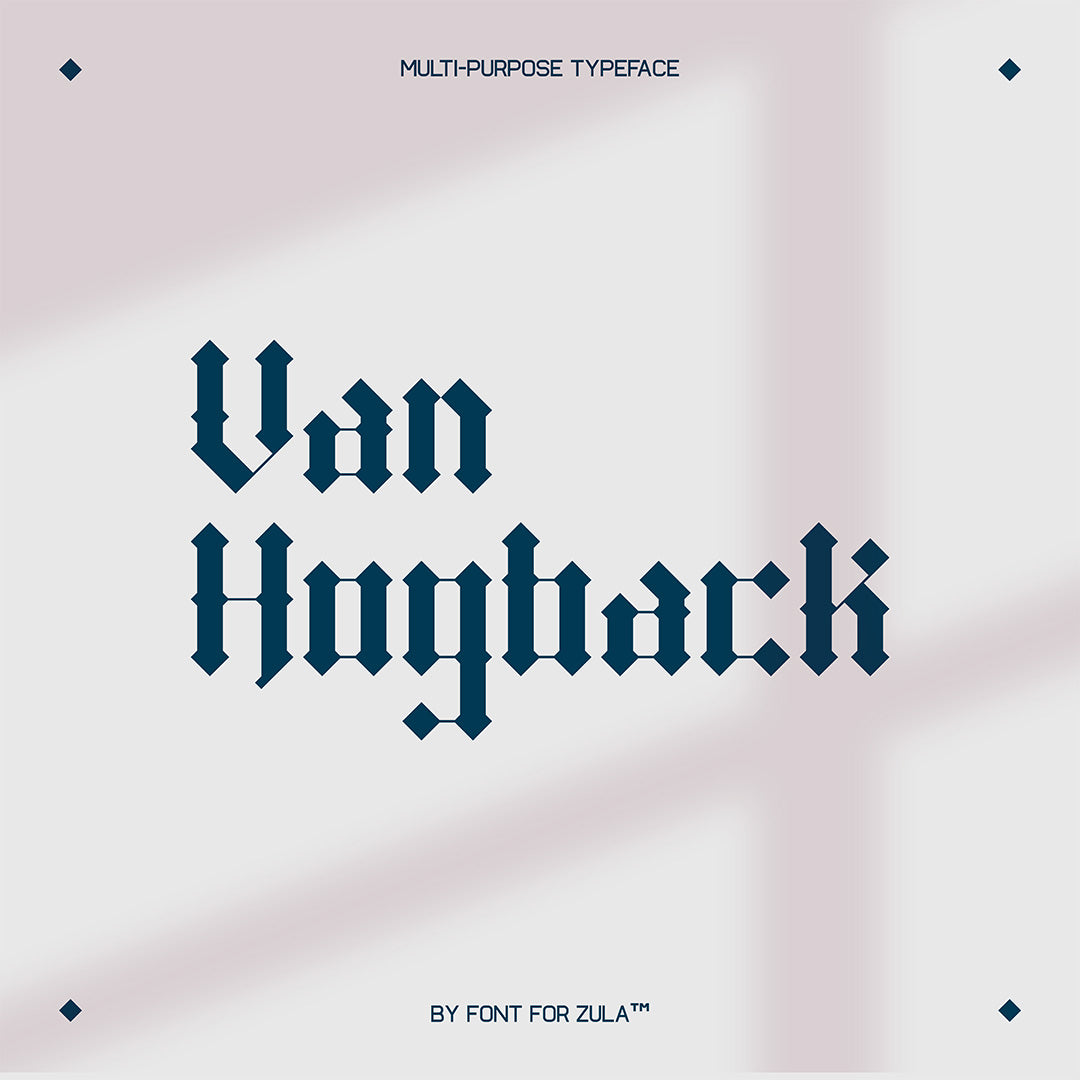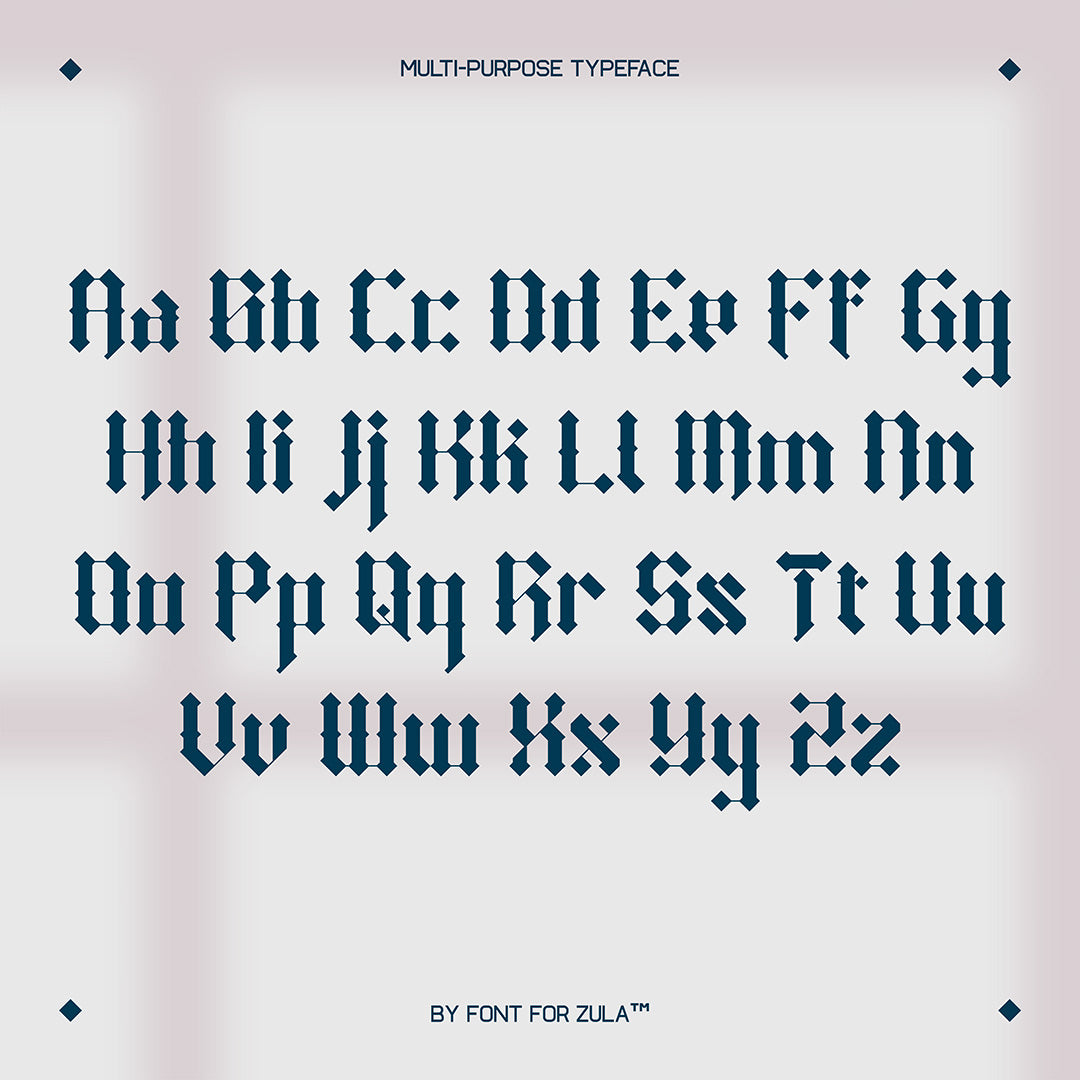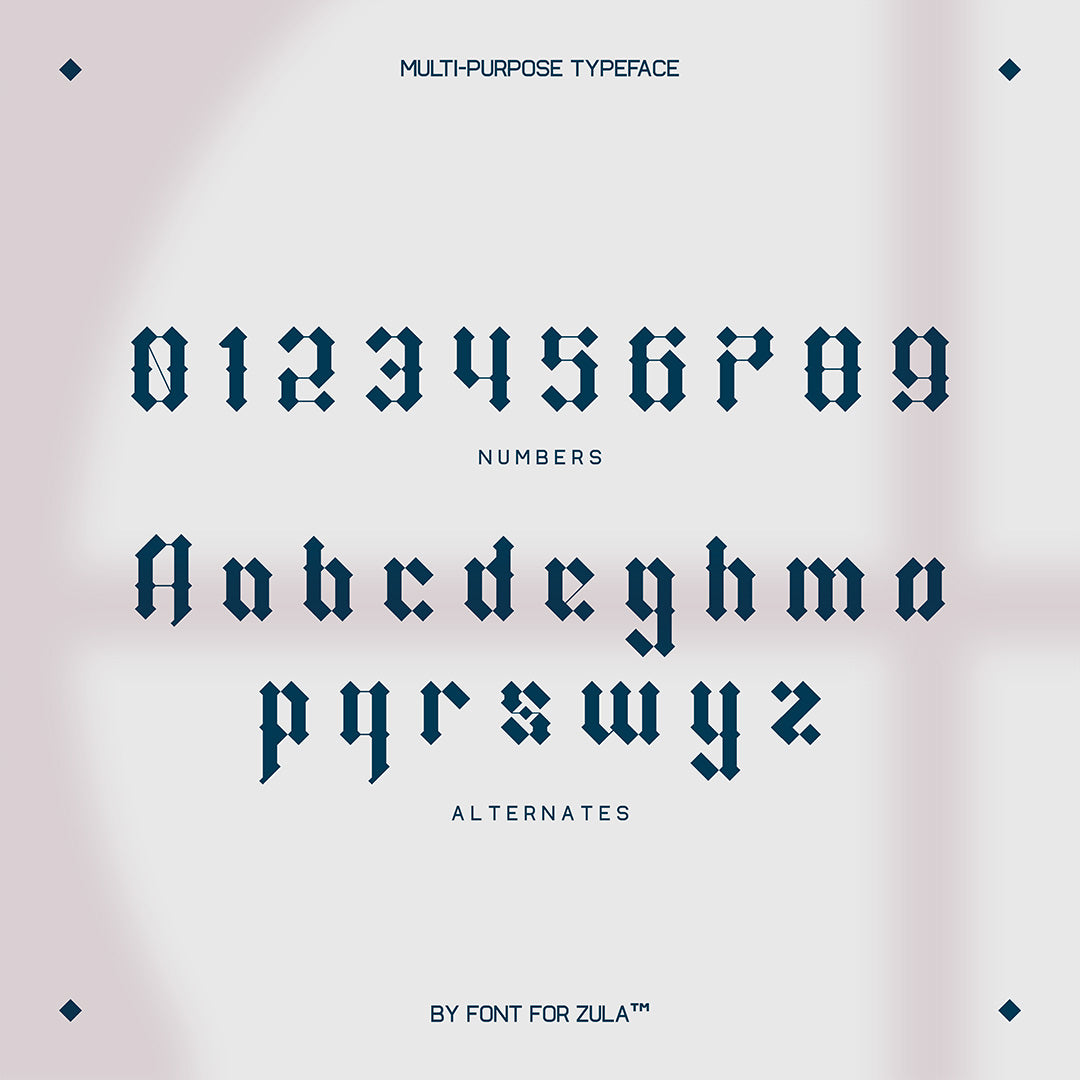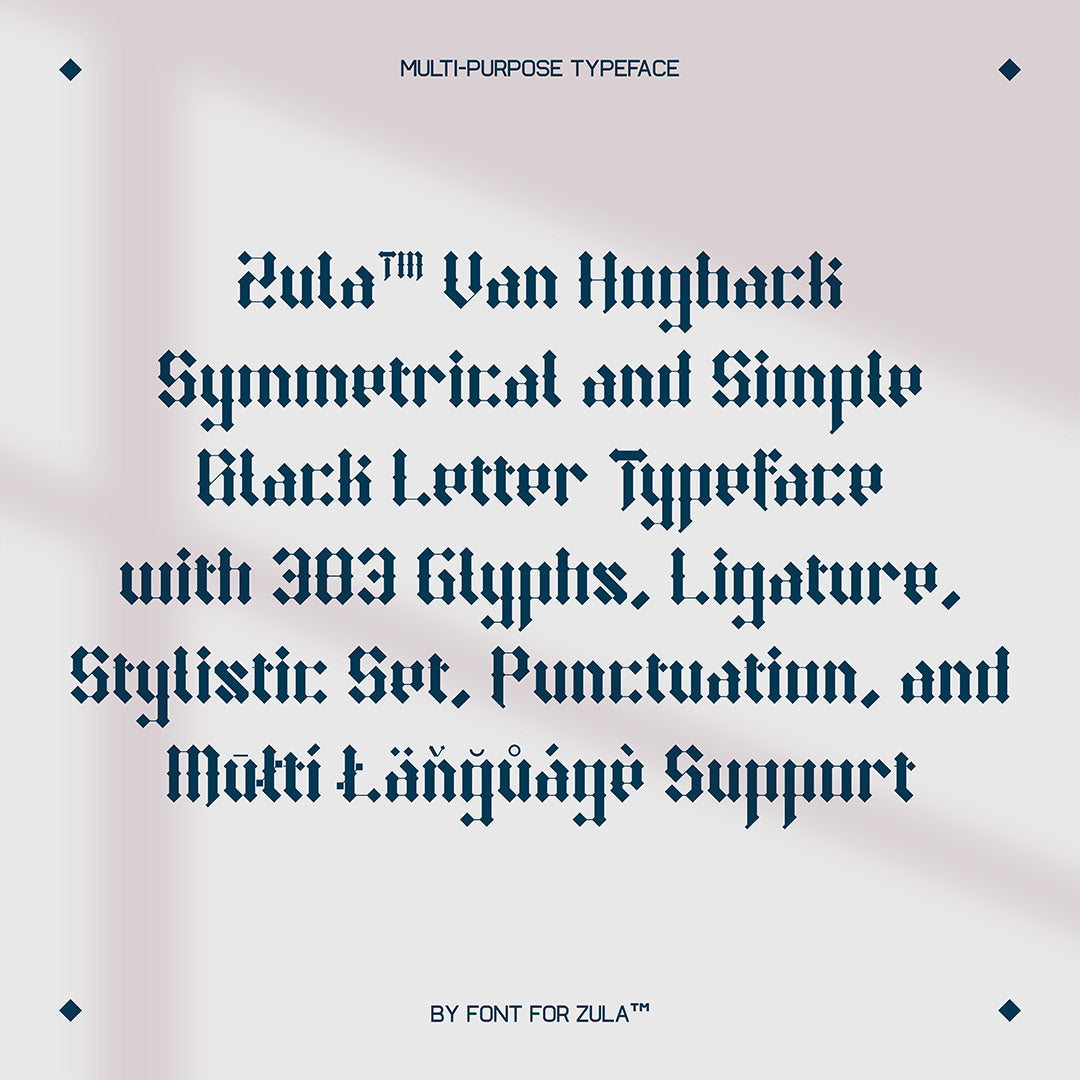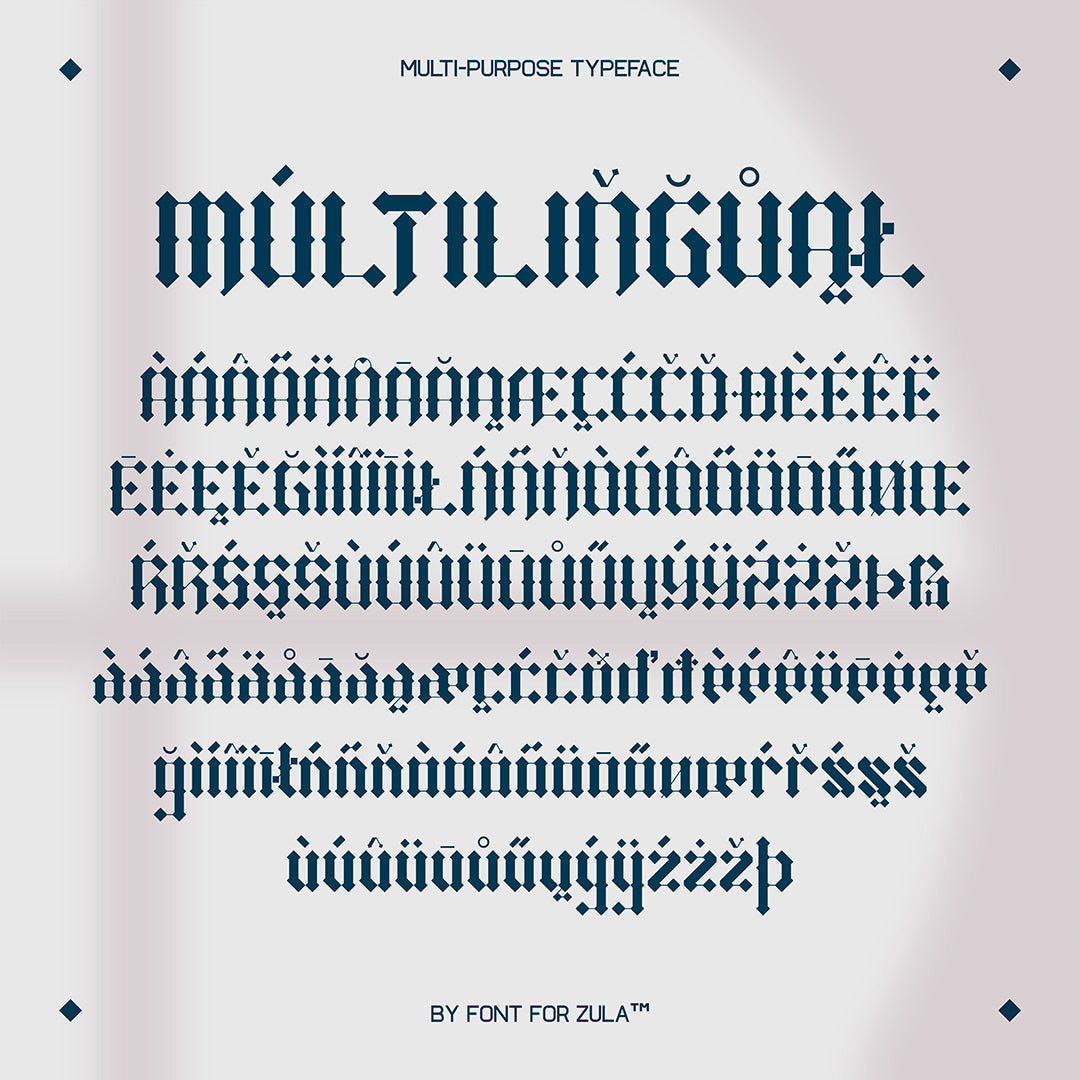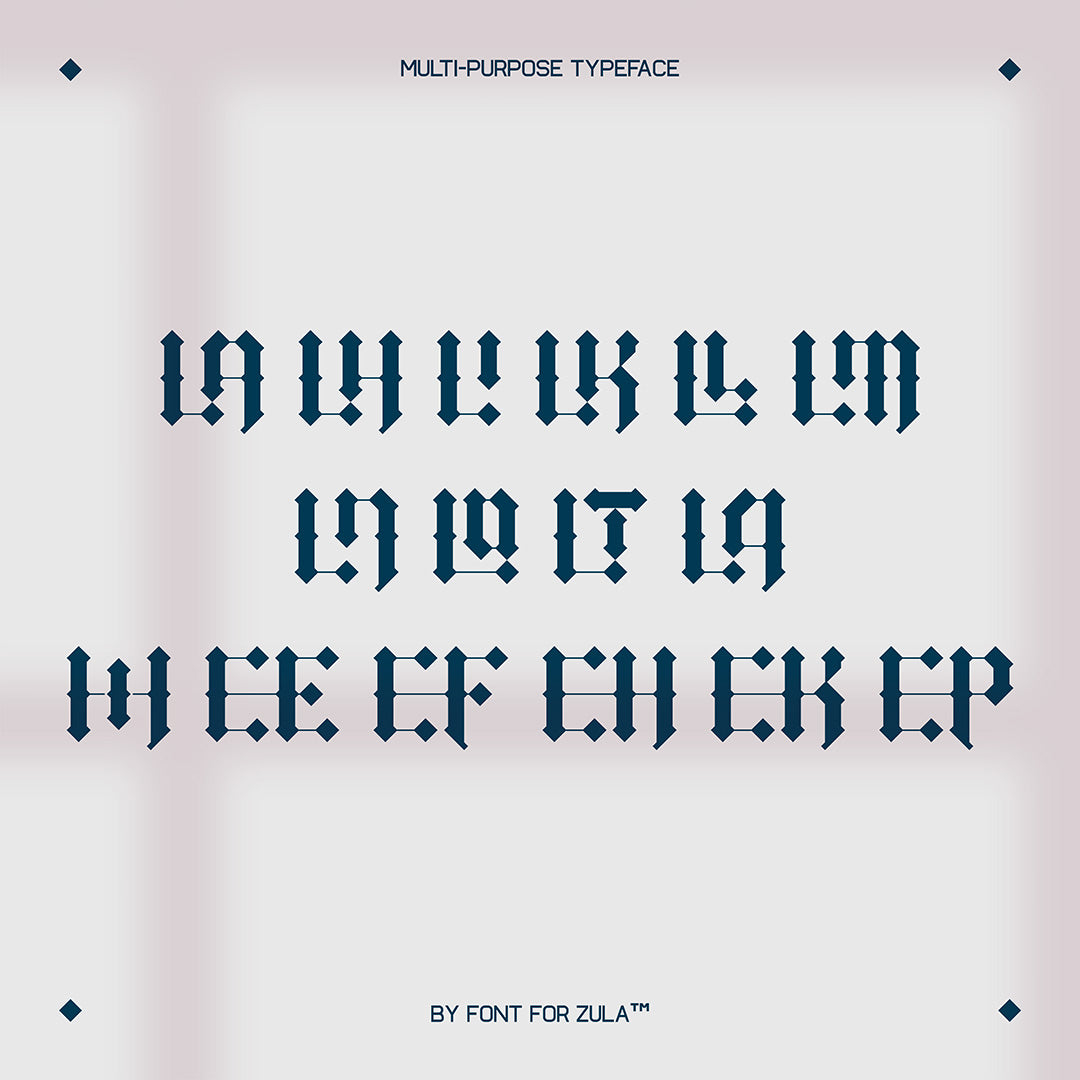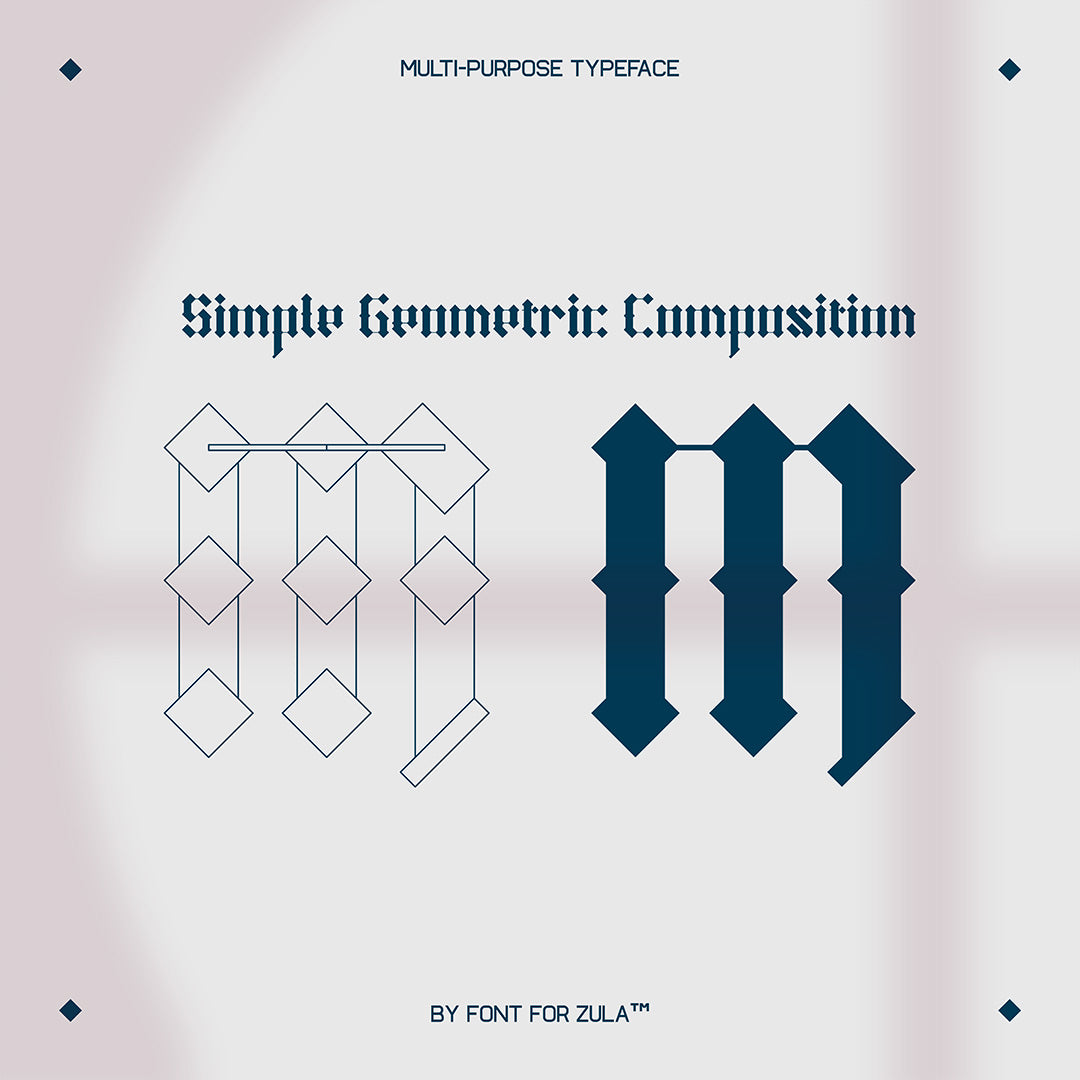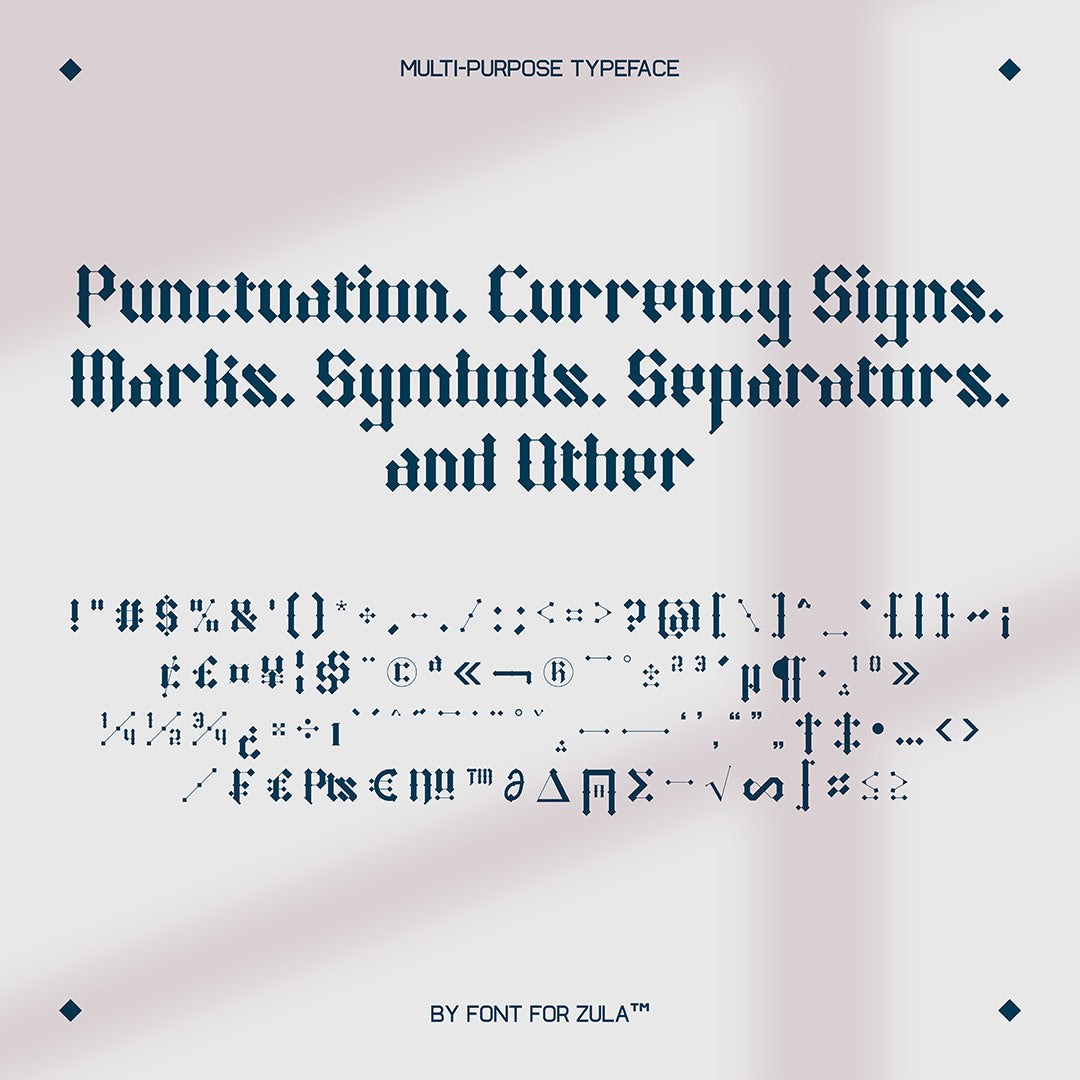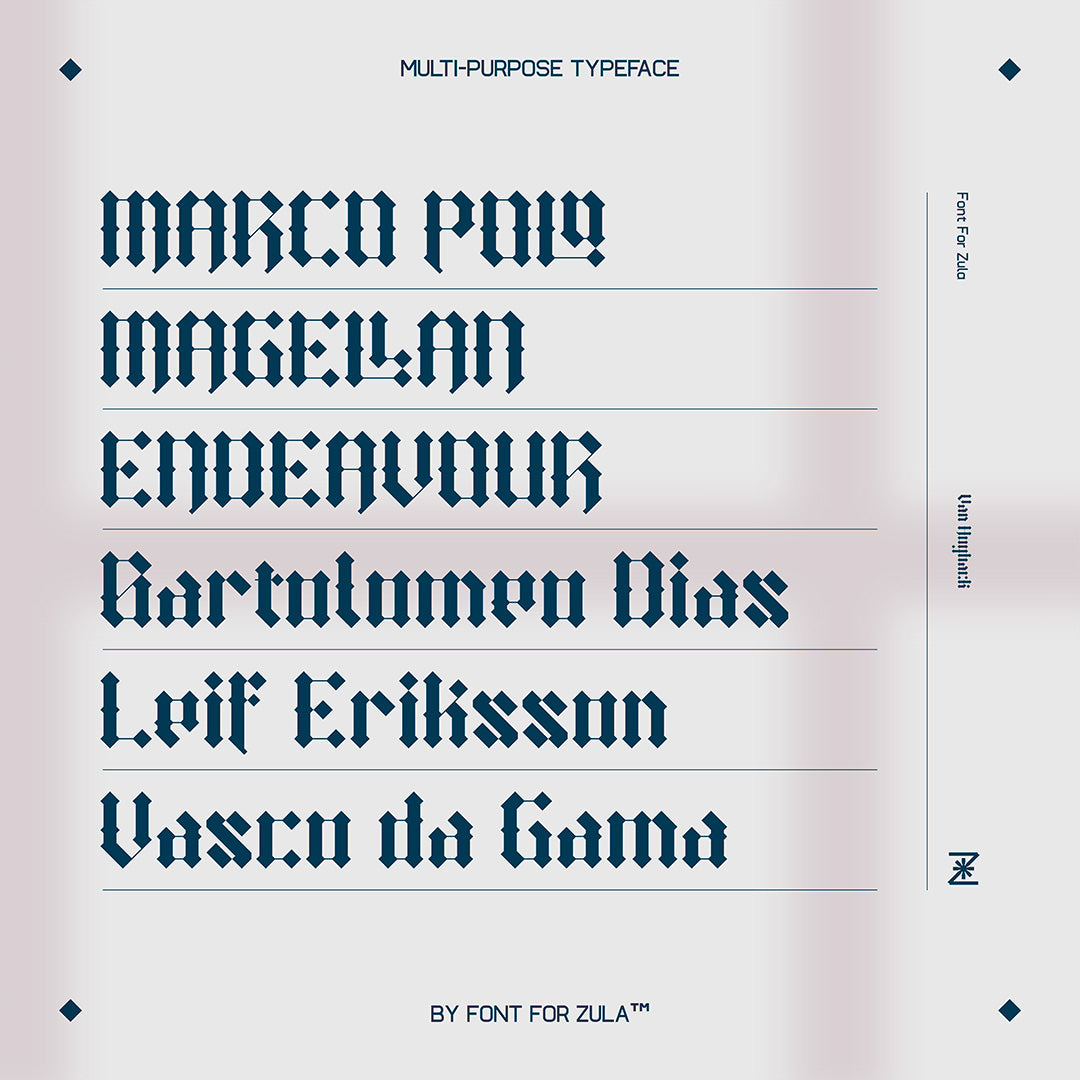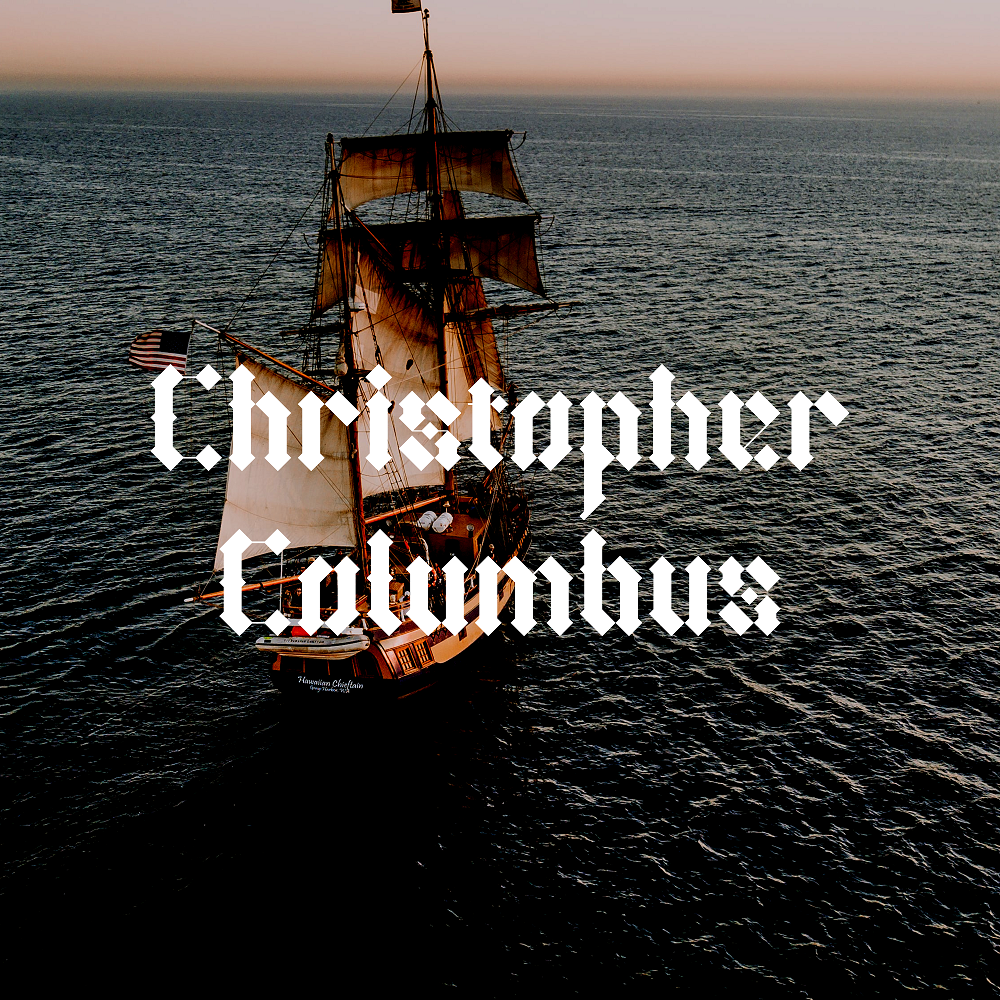
Van Hogback Typeface
Van Hogback is a typeface with the Black Letter style with a simplified shape that gives a
simple, unique, elegant and classic impression. This font is suitable for various purposes
such as for logos, display typefaces, branding, posters, writing, and more.
– Glyphs (383)
– Uppercase and Lowercase
– Numbers
– Multilingual Languange Support
– Punctuation, Currency Signs, Marks, Symbols, and Separators